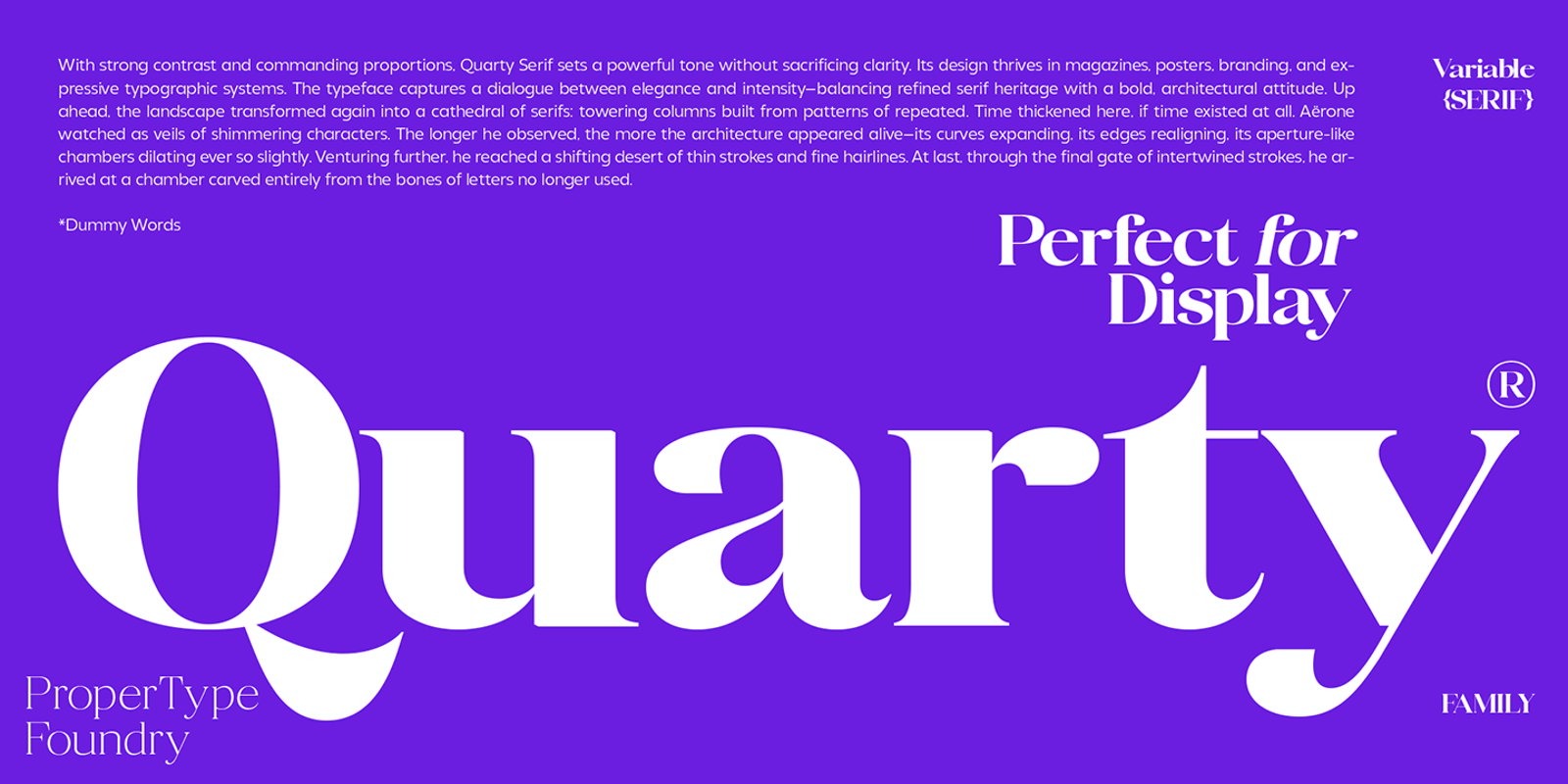
Quarty Cray Font Family
Quarty Cray Font Family brings a balanced structure and contemporary look, making it suitable for both digital and print design. Quarty Cray, a highly refined serif font that exudes an aura of elegance. Quarty’s uniqueness lies in the harmonious blend of geometric shapes and graceful curved elements, resulting in a font with a unique and distinctive character. Embrace the sophistication of Quarty for all your typographic needs. Included files: – Letters, Numbers, Punctuation, Ligature Accents, Swashes, Alternates If you have any questions, please feel free to contact me.